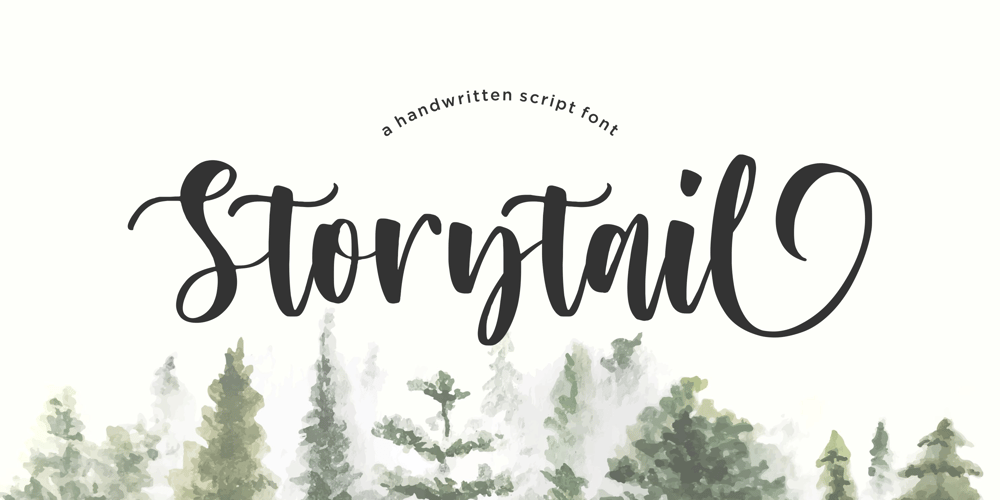
Storytail
Storytail font
Storytail Font Family was designed by Restu Angga and published by Balpirick. Storytail contains 1 styles and family package options. Storytail is a Handwritten Script Font.Storytail is a stylish and delicate script font. This font is PUA encoded which means you can access all of the glyphs and swashes with ease!- also multilingual support- Lowercase Ending SwashEnjoy the font, feel free to comment or feedback, send me PM or email.Thank you!